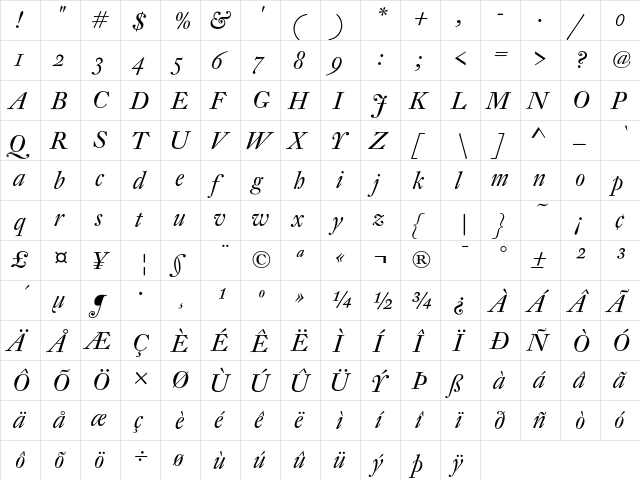
DTLFleischmannSD Italic Font Preview
DTLFleischmannSD Italic
DTLFleischmannSD Italic Font Details
Design Context for DTLFleischmannSD Typeface
DTLFleischmannSD takes a measured approach to typography — its balanced proportions and neutral character make it a reliable workhorse for both digital and print work. Its italic angle brings a sense of urgency and motion to the letterforms.
Pro Tip: Use DTLFleischmannSD for emphasis, pull quotes, and subheadings where its slanted energy can add rhythm to the layout.